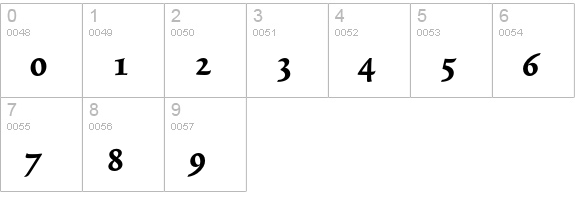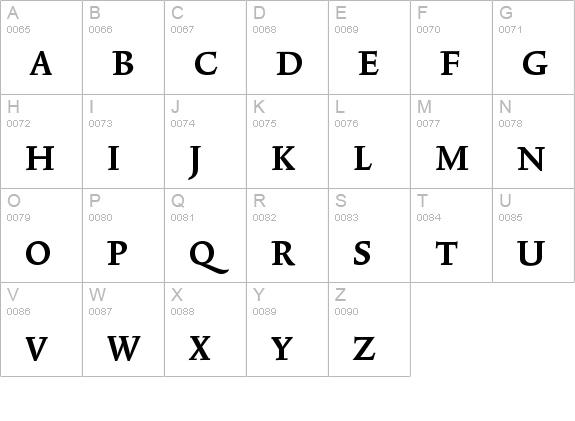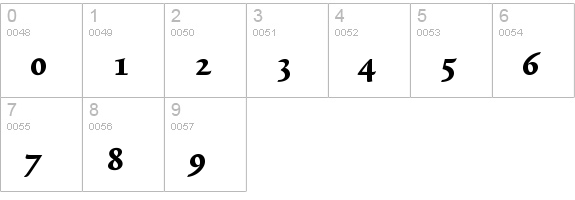
TriniteNo3-Bold is a strong, high-contrast variant in the TriniteNo3 typeface family \xE2\x80\x94 well suited to headlines, attention-grabbing titles, and strong calls-to-action.
TriniteNo3-Bold is a captivating and modern font that exudes confidence and sophistication. Its bold and assertive strokes make it perfect for headlines, titles, and other attention-grabbing designs. This font's unique combination of sharp angles and rounded curves creates a harmonious balance, resulting in a visually stunning display. What sets TriniteNo3-Bold apart is not only its striking aesthetic but also its accessibility. This font is freely available to download at FontsMarket.com, allowing designers and creatives to effortlessly incorporate it into their projects without any restrictions or limitations. Whether you're designing a logo, creating a poster, or working on a website, TriniteNo3-Bold offers endless possibilities to make your designs stand out. The versatility of TriniteNo3-Bold lies in its ability to adapt to various design themes and styles. Its clean and well-defined characters give it a contemporary feel, while its boldness adds a touch of strength and impact. The font's excellent legibility ensures that your message is conveyed with clarity and precision, guaranteeing that your audience will be captivated by your design. With TriniteNo3-Bold, you have the freedom to explore and experiment with different design approaches. Its bold presence and modern appeal make it a great choice for projects that require a strong and confident typographic statement. Whether you're designing for print or digital media, this font will effortlessly elevate your designs to new heights. Experience the power of TriniteNo3-Bold and unleash your creativity with this captivating font. Download it freely at FontsMarket.com and discover the endless possibilities it offers. With TriniteNo3-Bold, you can make a bold statement and leave a lasting impression on your audience.